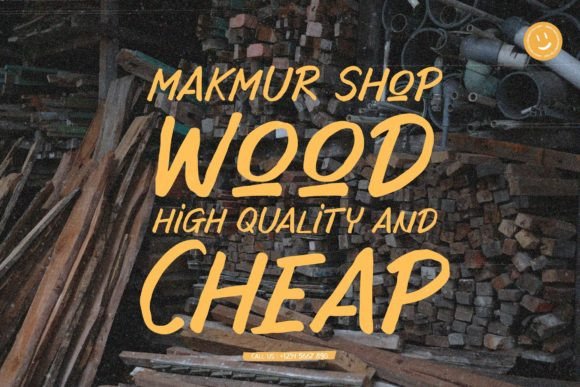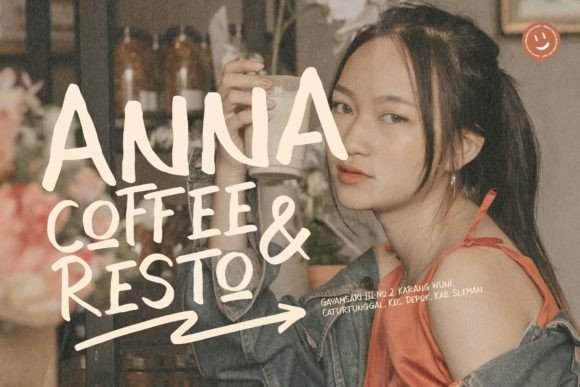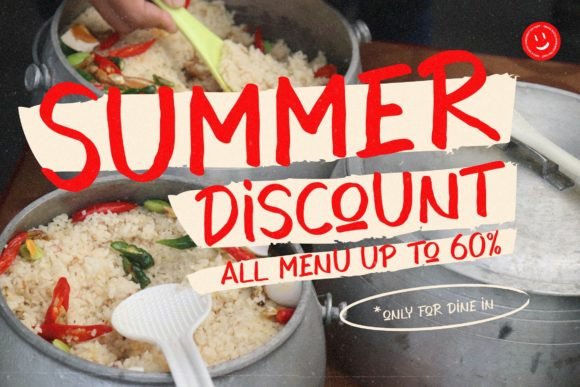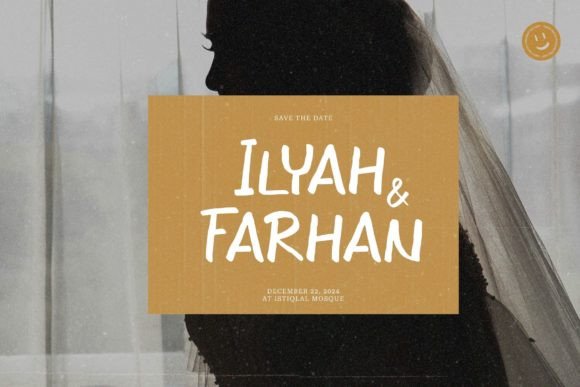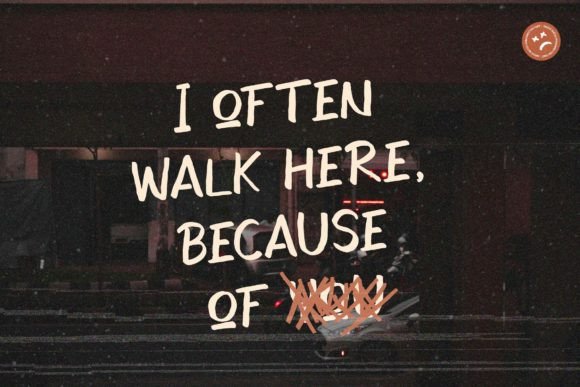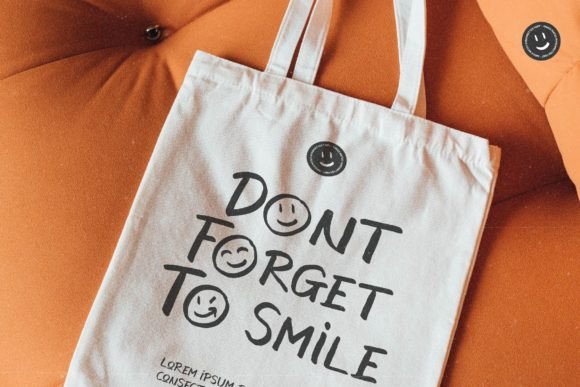
Introduction to Smule Mateo Font
You know that moment when you’re brainstorming ideas for your next creative project and you stumble upon the perfect design resource? That’s exactly what happened when I discovered the Smule Mateo Font. Its playful, handwritten style immediately caught my attention, and I knew it was going to elevate my designs to the next level.
As a designer, you’re always on the lookout for high-quality fonts that add a personal touch to your work. The Smule Mateo Font is a game-changer, offering a friendly and easy-to-read style that’s perfect for a wide range of creative projects. Whether you’re working on a personal or professional project, this font is sure to bring a smile to your face and make your designs stand out.
Key Features of Smule Mateo Font
- High-quality design resource ideal for creative projects, offering a unique and stylish aesthetic.
- Resolution: optimized for high-resolution displays, ensuring crisp and clear text rendering.
- Unique characteristics include a modern and minimalist design, making it perfect for a wide range of creative projects, from branding and logos to digital art and graphics.
Honest Review: Smule Mateo Font
As a designer, I’m always on the lookout for high-quality design resources to elevate my creative projects. Recently, I stumbled upon the Smule Mateo Font, and I’m excited to share my honest review with you.
- ✨ The Smule Mateo Font is incredibly versatile and can be used for a variety of creative projects, from branding to digital design.
- ✨ The font features a transparent background, allowing for seamless integration with other design elements.
- ✨ The high-quality design ensures that the font looks great on a range of devices and screen sizes.
- ⚠️ The font may not be suitable for projects requiring a more modern or futuristic feel, as it has a more classic aesthetic.
- ⚠️ Some users may find the font a bit too elegant or sophisticated for certain design projects.
Overall, I’m impressed with the Smule Mateo Font. Its versatility, high-quality design, and free download make it an excellent addition to any designer’s toolkit. While it may not be suitable for every project, I highly recommend giving it a try for your next creative endeavor.
Tips for Getting the Most Out of Smule Mateo Font
To get the most out of the Smule Mateo Font, experiment with different font sizes, colors, and combinations. Use it to create visually appealing graphics and designs that capture your audience’s attention.
Common Use Cases for Smule Mateo Font
The Smule Mateo Font is commonly used in various creative projects, including graphic design, branding, and digital marketing. It’s perfect for creating eye-catching logos, social media graphics, and presentations.
Alternatives to Smule Mateo Font
Great Vibes is a beautiful, elegant script font perfect for creative projects that require a touch of sophistication. It’s ideal for designing invitations, logos, and other graphics that need a high-quality, handwritten feel. Great Vibes is a free download and features a transparent background, making it easy to use on any design resource.
Compared to Smule Mateo Font, Great Vibes has a more refined and polished look, making it suitable for formal events and high-end branding. However, it lacks the playful, casual vibe of Smule Mateo Font, making it less suitable for everyday use.